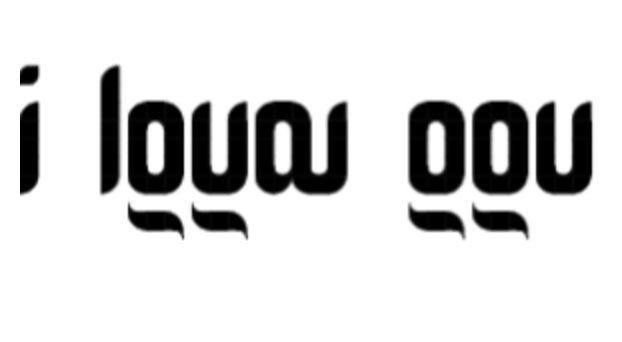
Awesome!
bet you cant read this. it looks like an ai generated it
@rhwsbbdbwi.   Yea, I can't read non sense...those aren't actual words, you just hit random keys. And I made this script in 2020/2021. Long before AI was ever a real thing...*eyeroll*
Codex BETAby pseud0cool